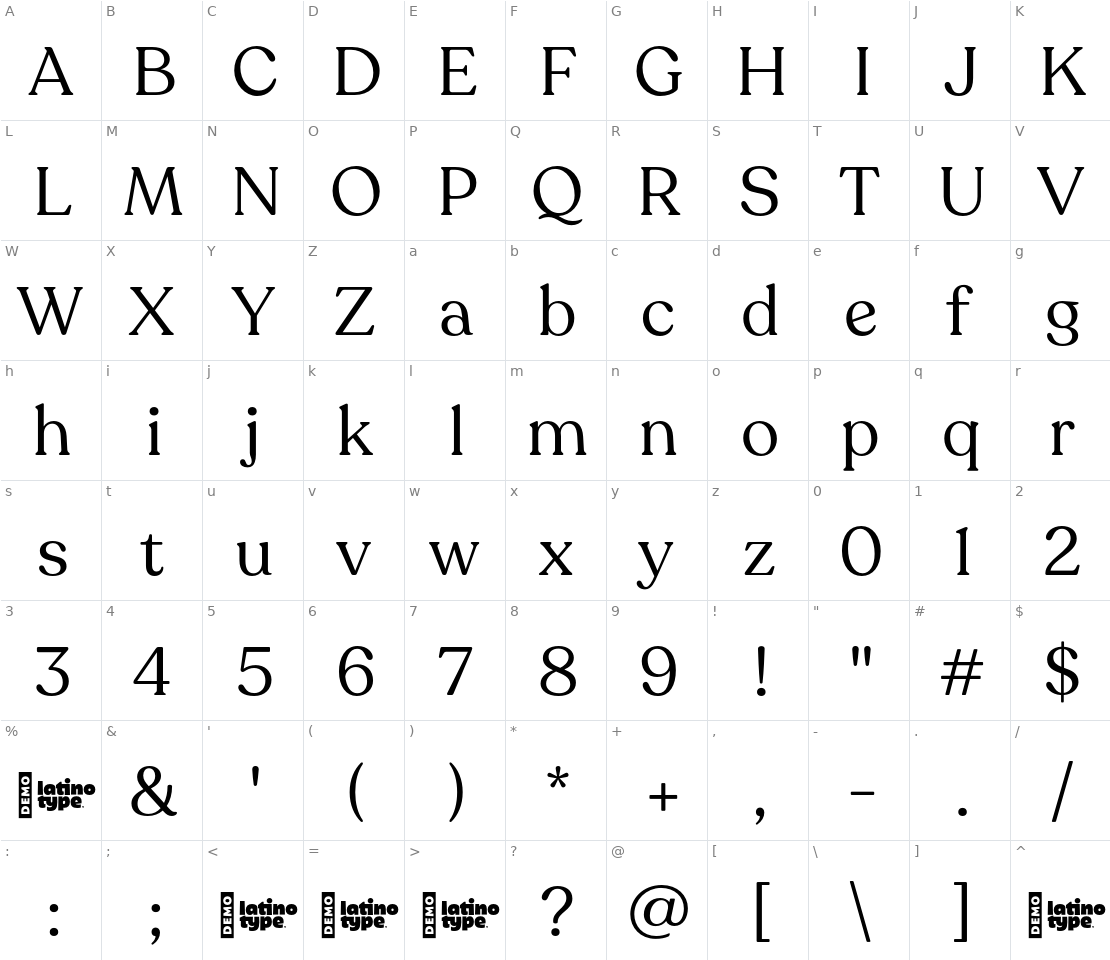
Recoleta
by Latinotype
Recoleta is a soft, warm serif from Latinotype that blends retro character with modern readability. Its rounded terminals and gentle curves give it a friendly, approachable feel that sets it apart from sharper transitional serifs, landing somewhere between 1970s nostalgia and contemporary editorial design. A strong pick for headlines, branding, and display work where you want elegance without formality.